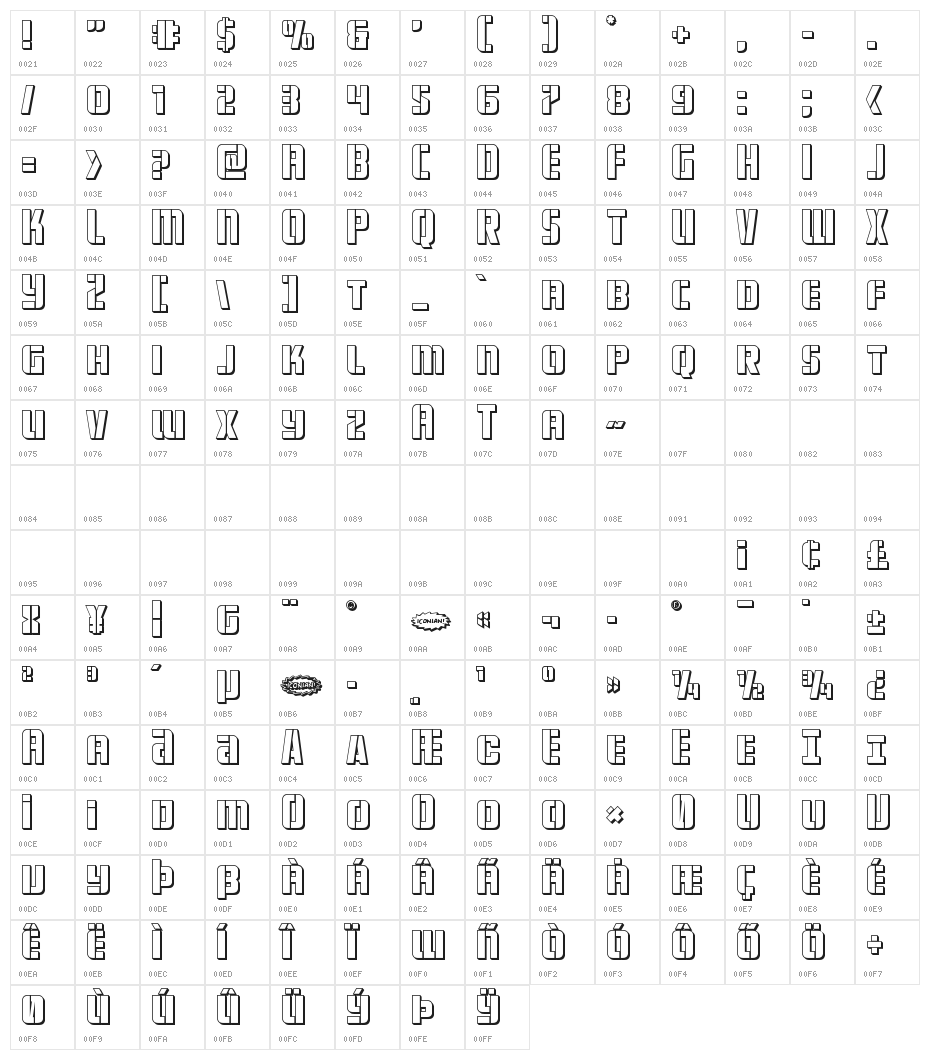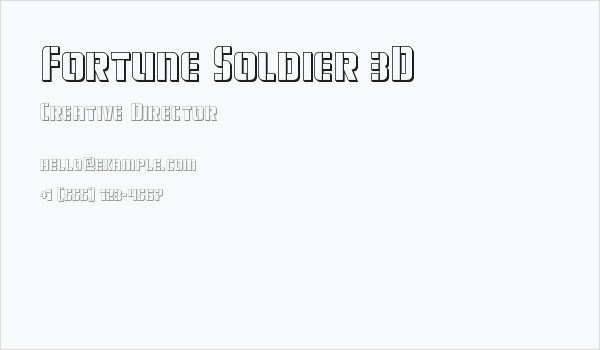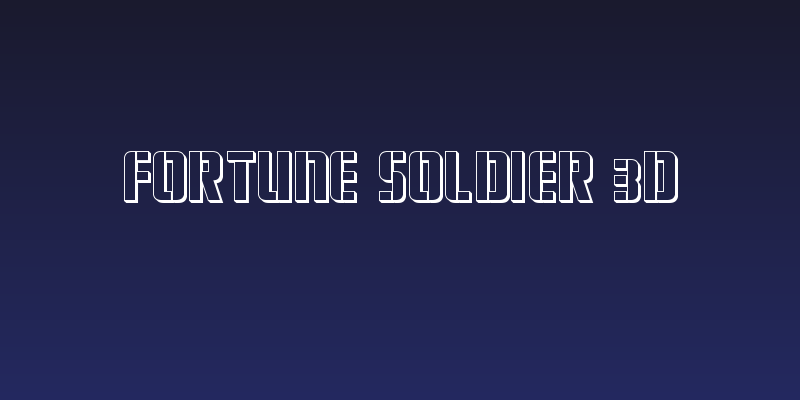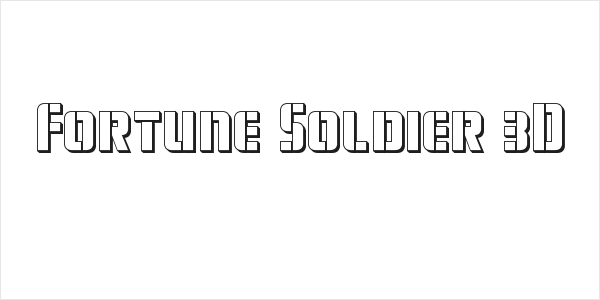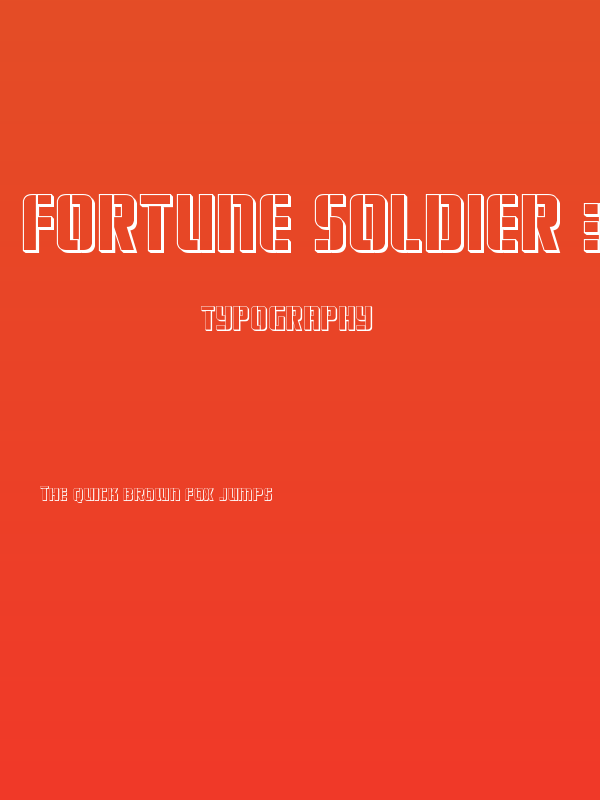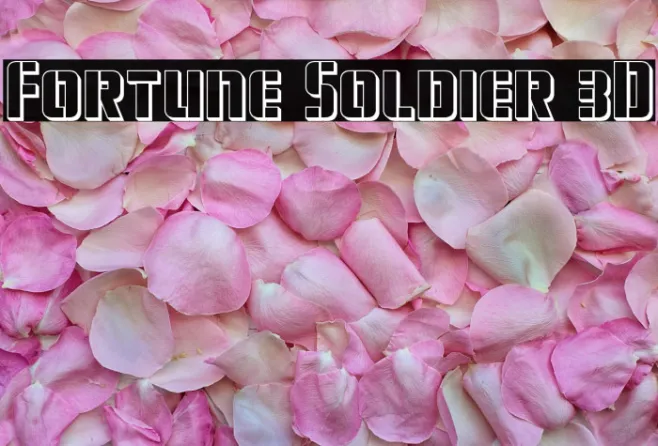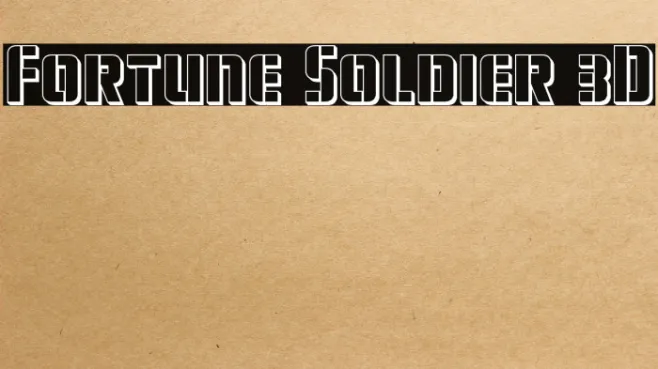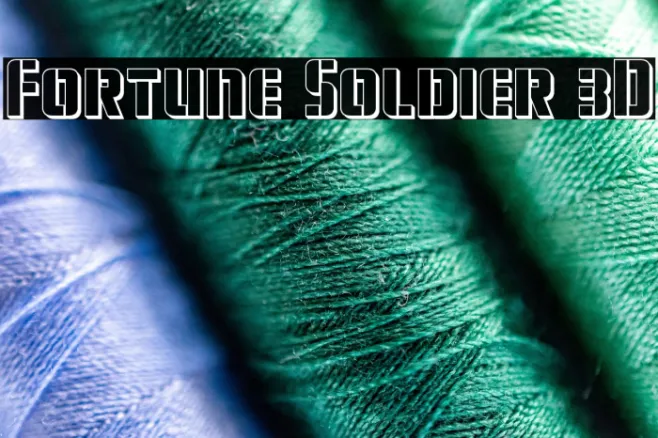
This font features a bold, three-dimensional design with a strong, geometric structure. Each character is outlined, giving it a distinct, blocky appearance that stands out. The uppercase letters are uniform in height, while the lowercase letters maintain a consistent style, contributing to a cohesive look. The numbers and special characters follow the same bold and structured design, ensuring visual harmony across all elements. The font's 3D effect is achieved through the use of shadowing and line work, which adds depth and dimension, making it ideal for eye-catching designs.
| Proposed Projects | Ideal for posters, headlines, logos, and any design requiring a bold, impactful typeface. |